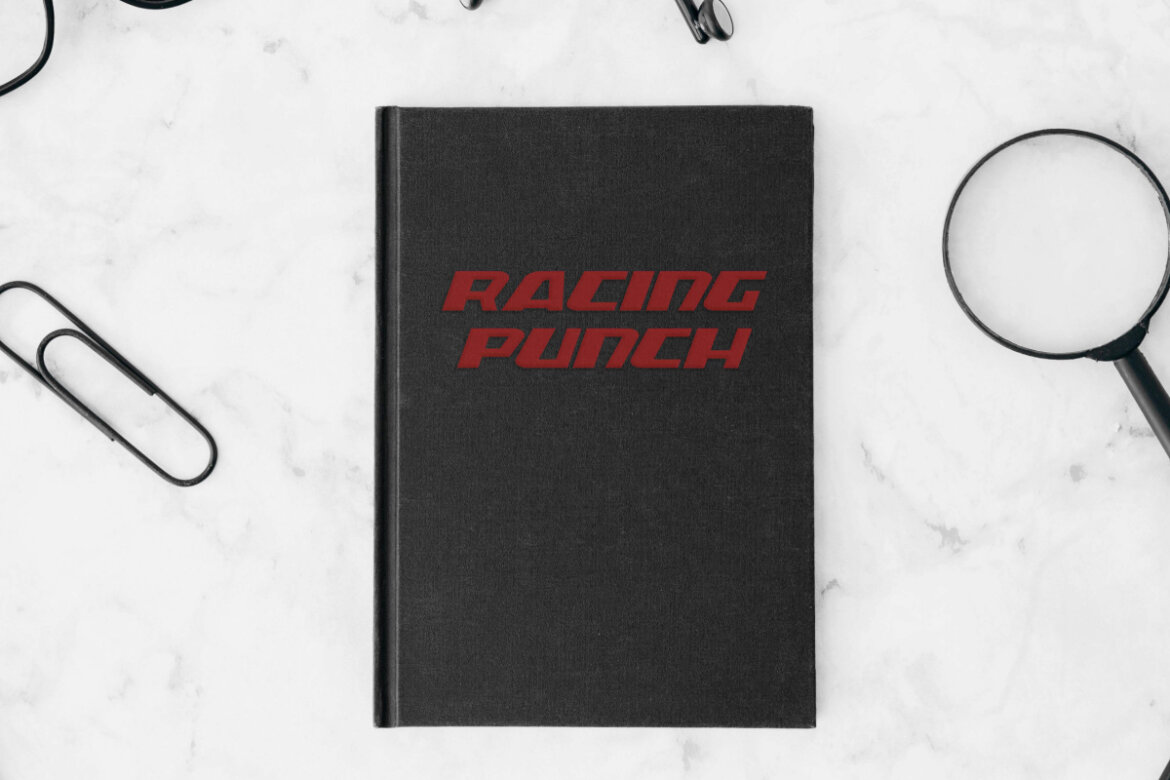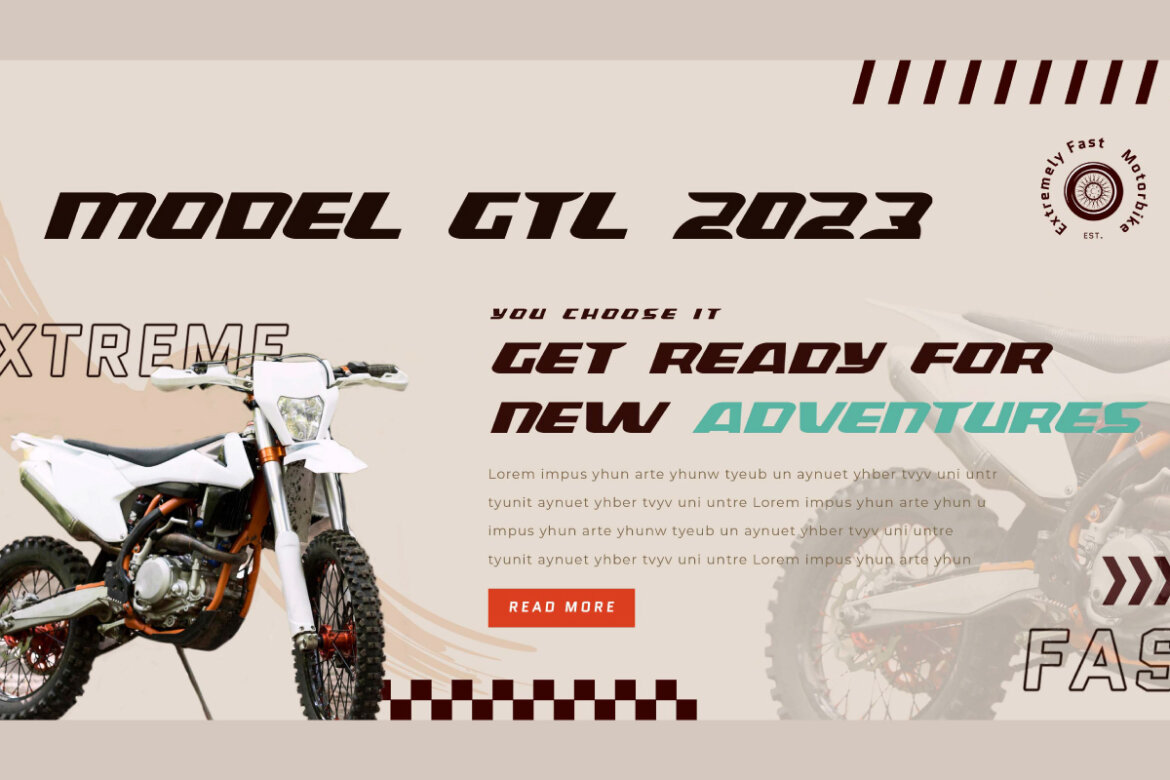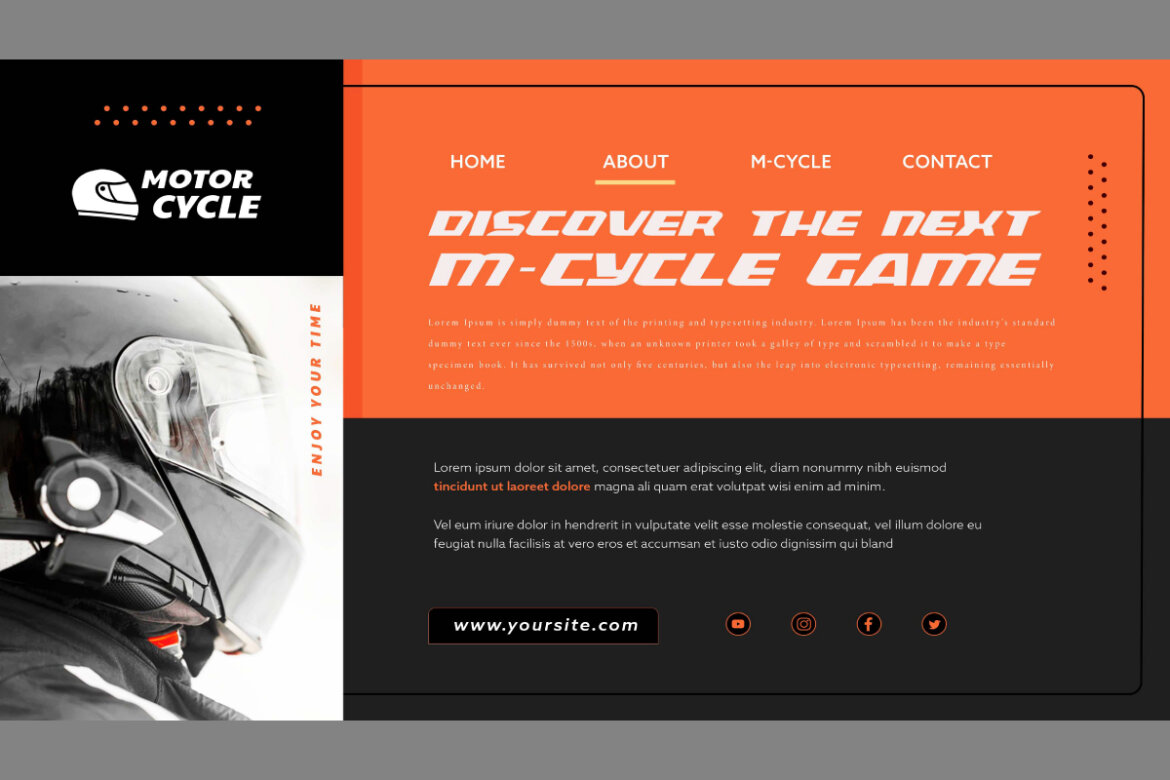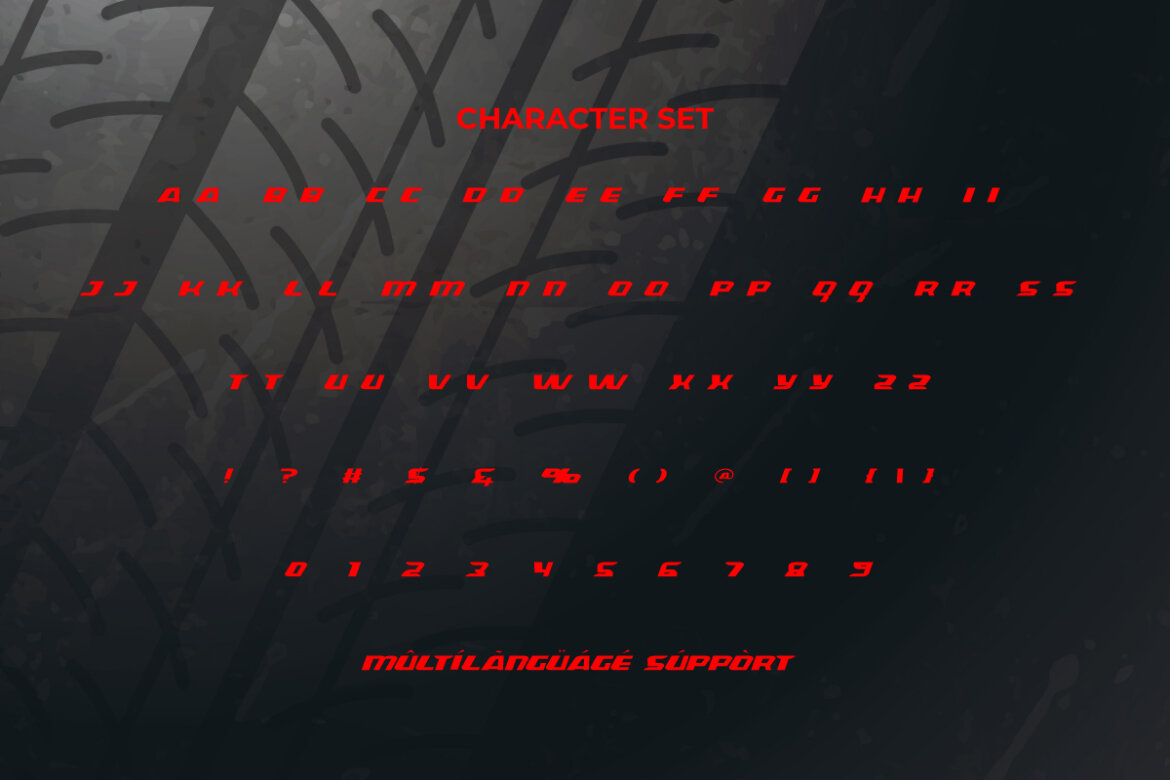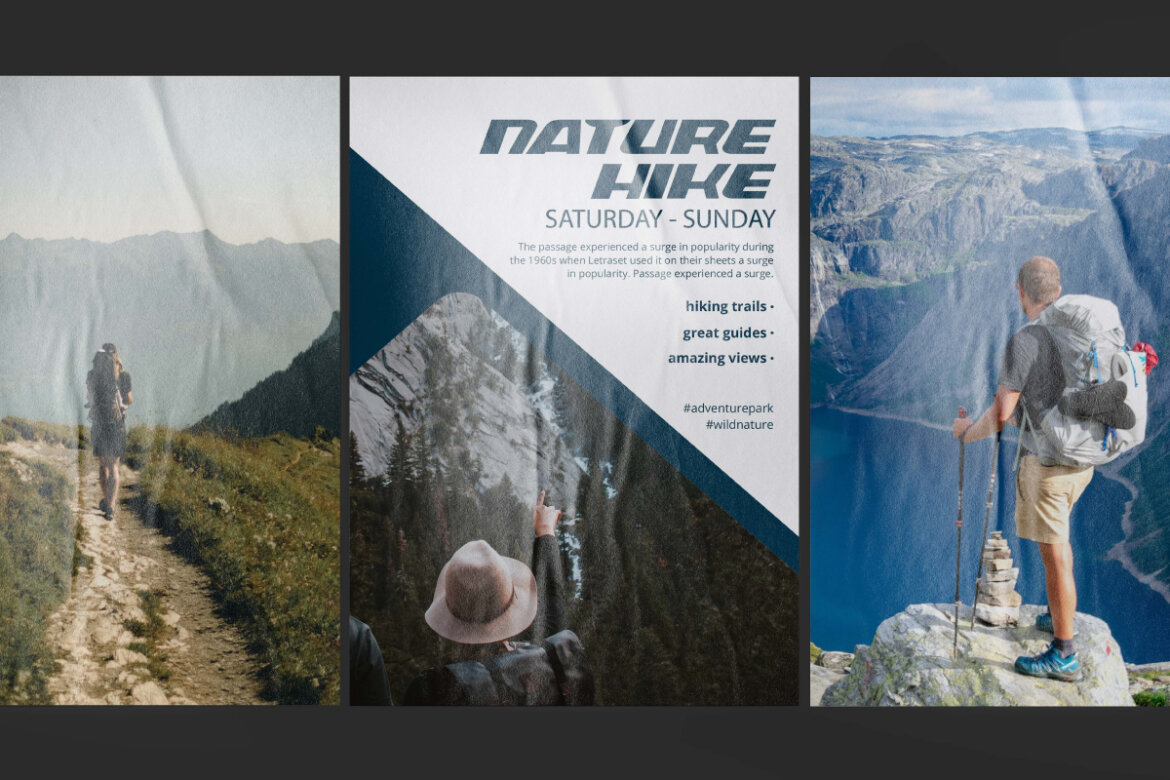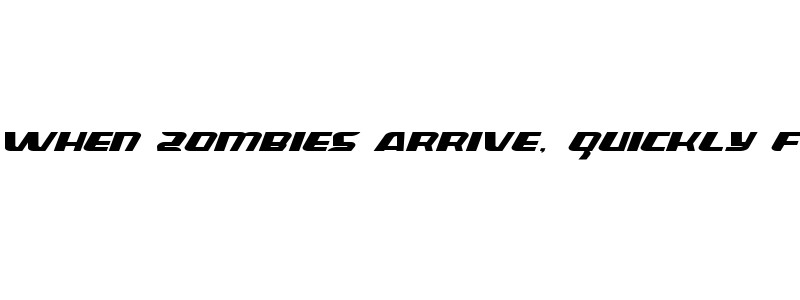
Racing Punch FREE Font
RacingPunch
Racing Punch Font is a cool game, sports and racing display font with the styles of fast, futuristic, powerful, racing, sporty, and strength. One of the most versatile font types to apply for strong and prominent branding. This font will be perfect for billboard, blogs, branding, brochure, business card, cover, flyer, hat stamp, header, headline, key chains, label, logos, poster, product packaging, screen print, signage, stickers, t-shirts, watermarks, website, and much more!
Racing Punch Font comes with a full set of ALL CAPS for Uppercase and Lowercase letters, Number, Punctuation, and Symbol. The letter shapes are slanted, sharp and geometric. It gives a sturdy look that is structured and confident. This will support business identities that require courage and uniqueness, such as ads, automotive, clothing brand, coffee house, content creator, fashion, film, game, graphic design, gym or fitness center, handicraft, jersey maker, menswear, merchandise, printing, publishing, racing, sportswear, travel & vacation agency, vehicle accessories, web designer, etc.